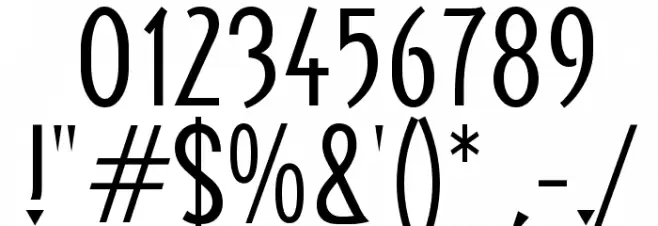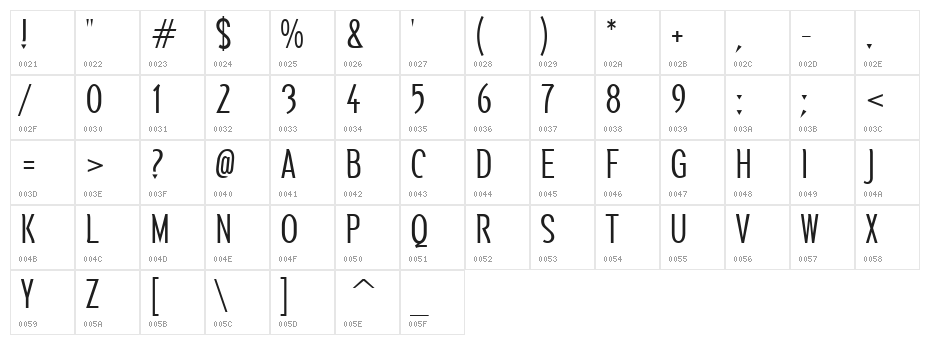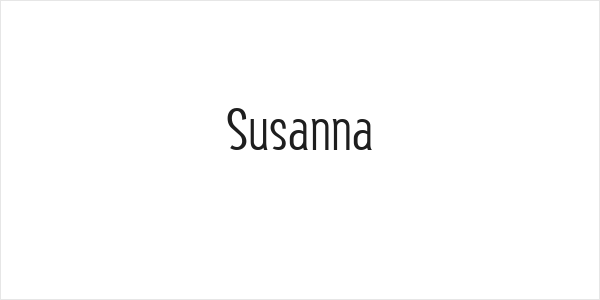
Susanna Font
Susanna Description
This font features a modern and clean design with a tall, narrow structure that gives it a distinctive and elegant appearance. The uppercase letters are bold and assertive, while the lowercase letters maintain a consistent style with slightly rounded edges, adding a touch of softness. The numbers are clear and easy to read, making them suitable for various applications. The special characters are well-integrated, ensuring a cohesive look across all glyphs. This font is versatile, suitable for both digital and print media, and can be used in a variety of design projects.